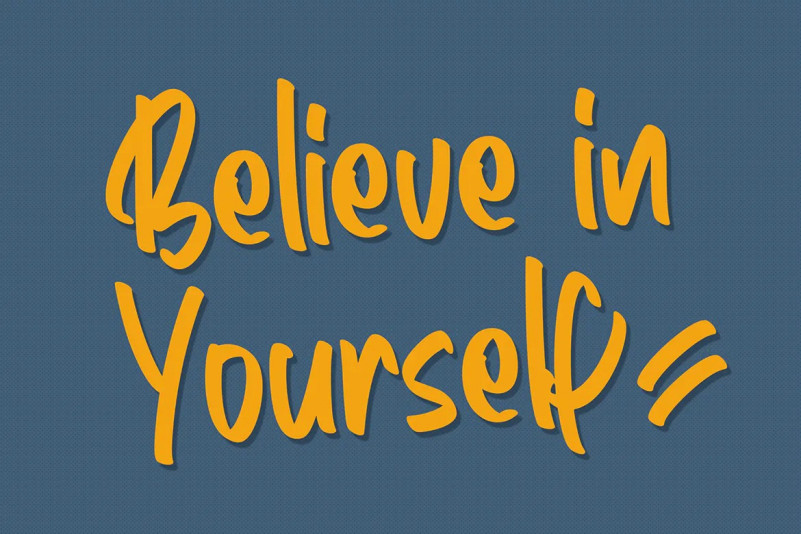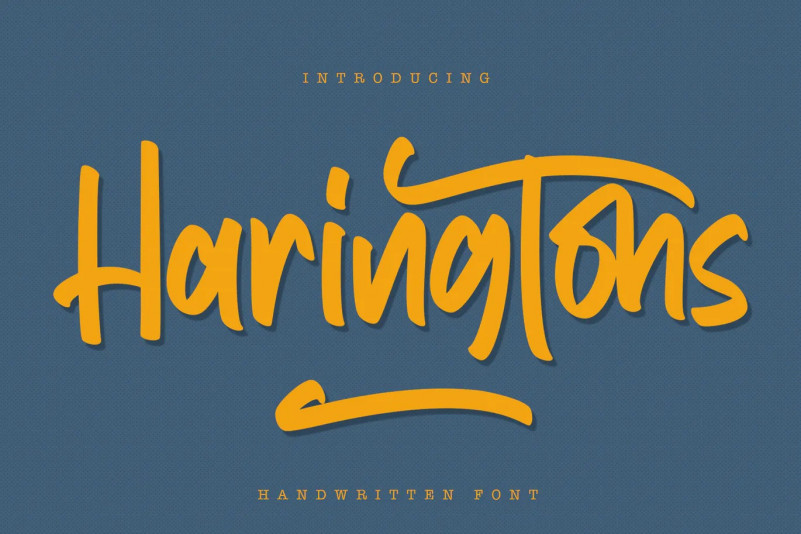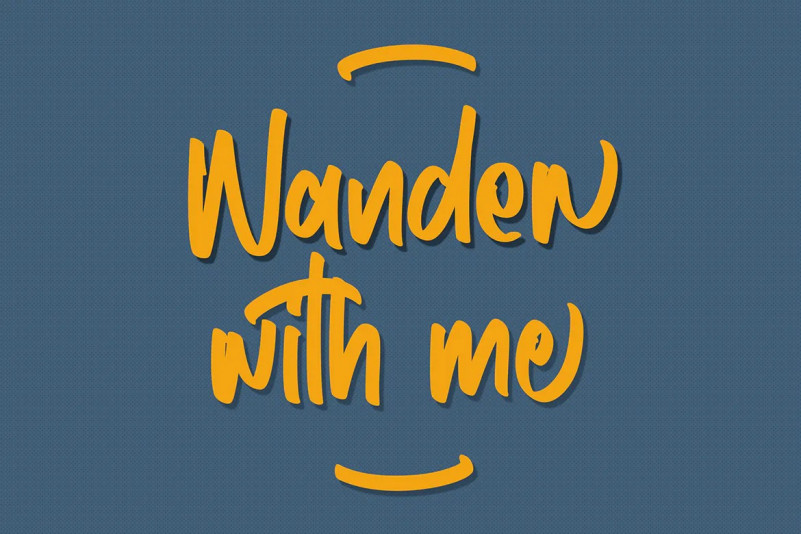
Haringtons Font
Haringtons – Handwritten Font contains a lowercase, uppercase, symbol, and also supports multi-language. There’s a lot of ligature in this font. Haringtons – Handwritten Font also comes with ligatures, stylistic alternates and many more. this font suitable for other design that you want.